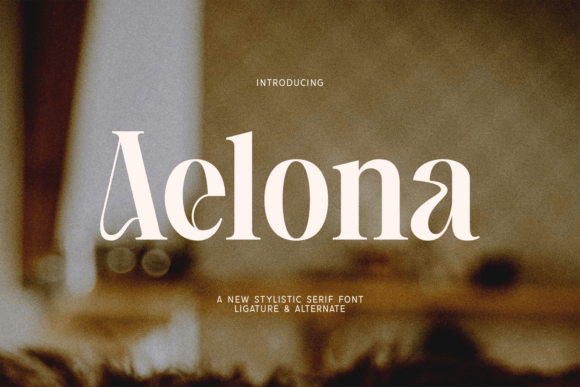
Aelona Font: Elevate Your Design with Elegance and Sophistication
In the world of typography, fonts play a crucial role in conveying the tone and personality of a brand or design. Among the numerous fonts available, Aelona stands out as a refined stylistic serif font that seamlessly blends classic structure with modern flair. With its elegant ligatures, unique alternates, and sculpted letterforms, Aelona offers versatility for high-end branding, editorial layouts, packaging, and wedding design.
Key Features of Aelona Font
- Elegant Ligatures: Aelona features beautiful ligatures that add a touch of sophistication to any design. These ligatures seamlessly connect letters, creating a fluid and harmonious visual experience.
- Unique Alternates: The font offers a range of unique alternates, allowing designers to add variety and creativity to their work. These alternates can be used to emphasize specific words or phrases, adding an extra layer of depth to the design.
- Sculpted Letterforms: Aelona’s letterforms are meticulously crafted with delicate details, giving every project a graceful and distinguished presence. The font’s sculpted letterforms are perfect for high-end branding, editorial layouts, and packaging design.
- Versatility: Aelona is designed to be versatile, making it suitable for a wide range of applications, including wedding design, editorial layouts, and packaging.
Design Applications for Aelona Font
Aelona’s unique features make it an excellent choice for various design applications. Here are some of the ways you can use Aelona to elevate your designs:
- High-End Branding: Aelona’s elegant and sophisticated design makes it perfect for high-end branding. Use it to create a luxurious and refined visual identity for your brand.
- Editorial Layouts: Aelona’s classic structure and modern flair make it an excellent choice for editorial layouts. Use it to add a touch of elegance and sophistication to your publications.
- Packaging Design: Aelona’s sculpted letterforms and delicate details make it perfect for packaging design. Use it to create eye-catching and luxurious packaging that stands out on store shelves.
- Wedding Design: Aelona’s elegant and refined design makes it an excellent choice for wedding design. Use it to create beautiful wedding invitations, programs, and other stationery.
Typography Tips for Using Aelona Font
To get the most out of Aelona, here are some typography tips to keep in mind:
- Use Aelona as a Headline Font: Aelona’s elegant and sophisticated design makes it perfect for headlines. Use it to create eye-catching titles that grab attention.
- Pair Aelona with a Sans-Serif Font: Aelona pairs well with sans-serif fonts, creating a beautiful contrast between elegant and modern.
- Experiment with Ligatures: Aelona’s ligatures are a key feature of the font. Experiment with different ligatures to add variety and creativity to your design.
- Pay Attention to Kerning: As with any font, pay attention to kerning to ensure that your text is evenly spaced and visually appealing.
Font Specifications
Here are the specifications for Aelona font:
- Font Family: Aelona
- Font Style: Serif
- Font Weight: Regular, Bold, Italic
- Glyphs: glyphs, including ligatures and alternates
Aelona font is a refined stylistic serif font that blends classic structure with modern flair. With its elegant ligatures, unique alternates, and sculpted letterforms, Aelona offers versatility for high-end branding, editorial layouts, packaging, and wedding design. Whether you’re a designer, typographer, or simply someone who appreciates beautiful typography, Aelona is an excellent choice for any design project.